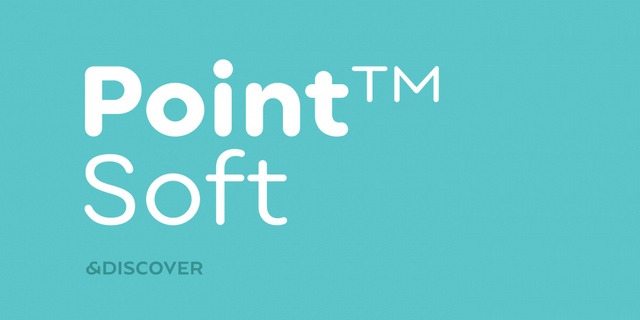
Point Soft Font
Point Soft Font is ideal for gentle user interfaces, approachable app designs, soft branding materials, rounded web typography, friendly children's applications, welcoming healthcare communications, comforting wellness platforms, accessible educational interfaces, tactile product packaging, and human-centered design systems.
What makes Point Soft Font so exciting is its exceptional embodiment of tactile comfort and gentle accessibility that creates an immediate sense of warmth and approachability through softly rounded typography designed for human connection. This thoughtfully engineered typeface features gently curved letterforms with comfort-optimized proportions and touch-friendly character variations that immediately convey warmth, accessibility, and the inviting nature of human-centered design. The font's soft construction and tactile aesthetic create an instant sense of welcoming comfort and intuitive usability, making it ideal for projects that need to communicate gentle approachability, user-friendly design, and the transformative power of soft, accessible communication to audiences seeking comfortable digital experiences and meaningful human-centered interactions.
The Point Soft Font family typically includes multiple gentle weights and rounded styles, often featuring light through bold variations along with softly flowing italic versions and accessibility-optimized alternatives. Human-centered font families frequently offer extensive character sets including rounded symbols, comfort indicators, and user-friendly elements that ensure optimal typography across diverse accessibility requirements and gentle design applications.
The soft nature of Point Soft Font makes it particularly effective for targeting demographics that prioritize comfort and accessibility in their digital and physical interactions. UX designers and accessibility professionals will find this font especially valuable for materials that must establish immediate comfort credibility and connect with audiences seeking authentic gentle experiences and meaningful accessible communication.
What distinguishes Point Soft Font is its ability to convey gentle approachability while maintaining the clarity necessary for effective digital and print communication across diverse applications. This balanced characteristic makes it suitable for both specialized accessibility contexts and mainstream design applications where projecting comfort and maintaining functional clarity must work together seamlessly.
Professional designers recognize that Point Soft Font brings invaluable accessibility credibility to projects across industries including user experience design, healthcare communications, educational technology, and human-centered services. Its soft character and gentle appeal make it essential for organizations whose mission centers on creating comfortable user experiences, promoting accessible design, and fostering meaningful connections between technology and human comfort.
The systematically optimized gentleness of Point Soft Font ensures consistent comfort messaging across all accessibility-focused communication applications while honoring the fundamental principles of human-centered design and tactile accessibility in contemporary typography.